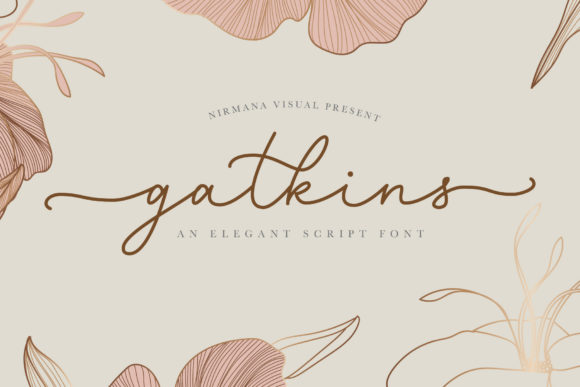
Unleash the Enchantment of Gatkins Font: Your Gateway to Celebratory Elegance
Prepare to be mesmerized by Gatkins, a captivating script font that exudes elegance and romance. This stunning creation by Sigit Dwipa is a tribute to the timeless art of calligraphy, featuring an alluring baseline, graceful lines, and breathtaking glyphs that dance across the page like whispered secrets.
Indulge in the versatility of Gatkins, a font that effortlessly adapts to a symphony of celebratory occasions. Whether you're crafting heartfelt wedding invitations, designing enchanting logos, or adding a touch of whimsy to social media graphics, Gatkins Font flawlessly complements your creative visions, transforming them into masterpieces.
With Gatkins Font, you hold the key to unlocking a realm of creative possibilities. Its PUA encoding grants you effortless access to a treasure trove of adorable glyphs and swashes, empowering you to unleash your imagination and weave tales of love, joy, and enchantment.
As you explore Gatkins Font's depths, discover a wealth of special features that elevate your designs to new heights. Alternate glyphs and ligatures dance in harmony, providing endless opportunities for customization and personalization. Each element of this font is meticulously crafted to capture the essence of timeless romance, ensuring that your creations radiate an aura of elegance and sophistication.
Embrace Gatkins Font, the ultimate choice for discerning creatives seeking to infuse their designs with a touch of magic. Let its enchanting curves and delicate details captivate your audience, leaving them spellbound by the beauty of your creations. Experience the transformative power of Gatkins Font today and embark on a journey of creative fulfillment.